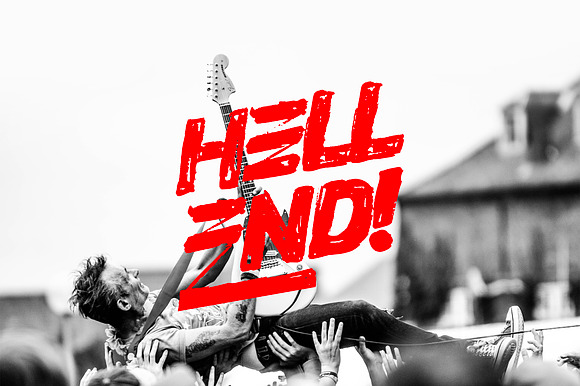
Hellend Brush Font
This font brush is great for creating horror, action and rock themed designs. Hellend bold consists of 2 font styles. consist of lowercase letters and uppercase letters you can combine this font in such a way that it becomes the design of your dreams. These fonts are hand-drawn using brushes and inks, which can be combined into a variety of hard-themed designs.
- consist of lowercase letters and uppercase letters you can combine this font in such a way that it becomes the design of your dreams.
- Hellend Bold